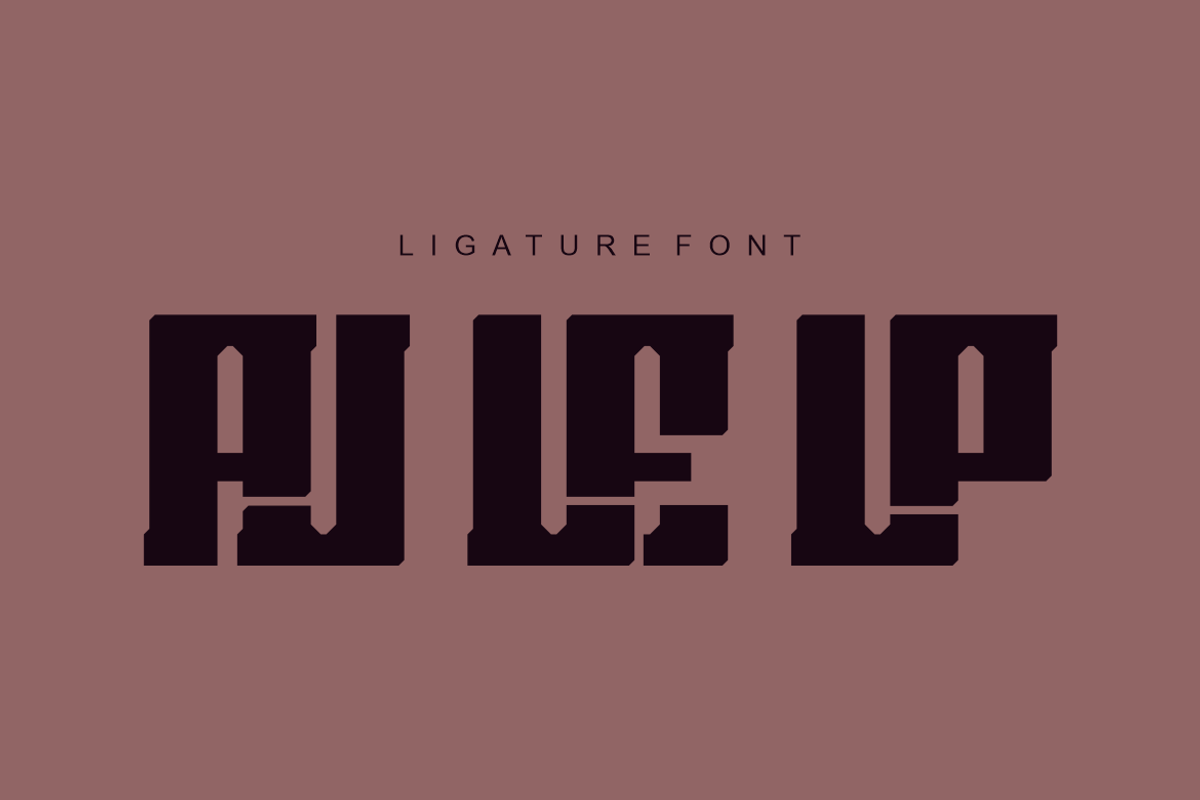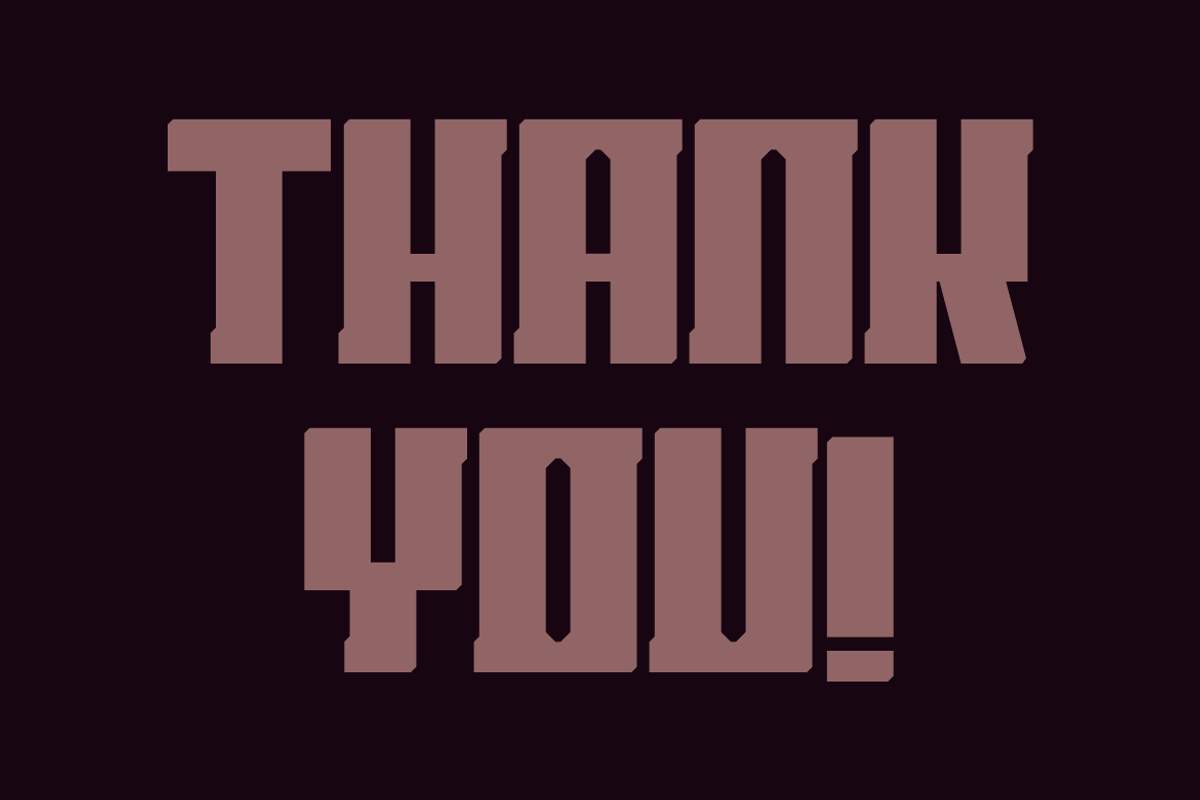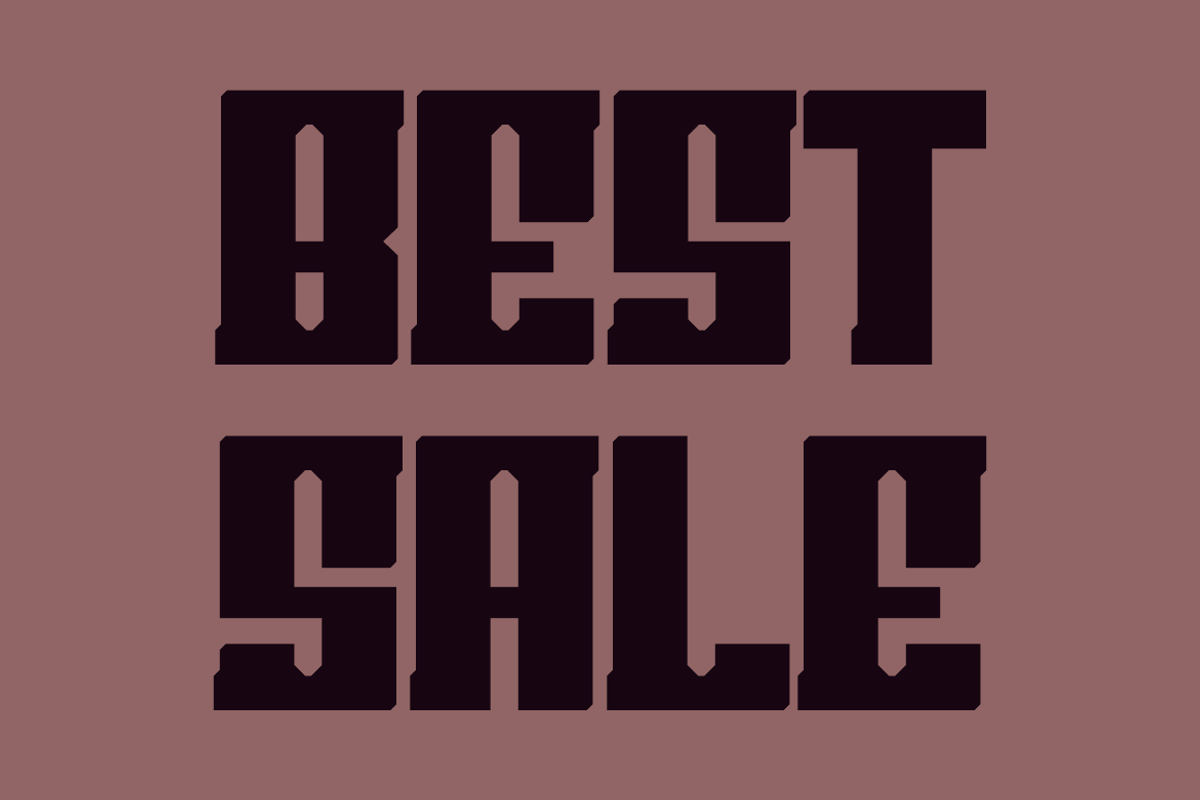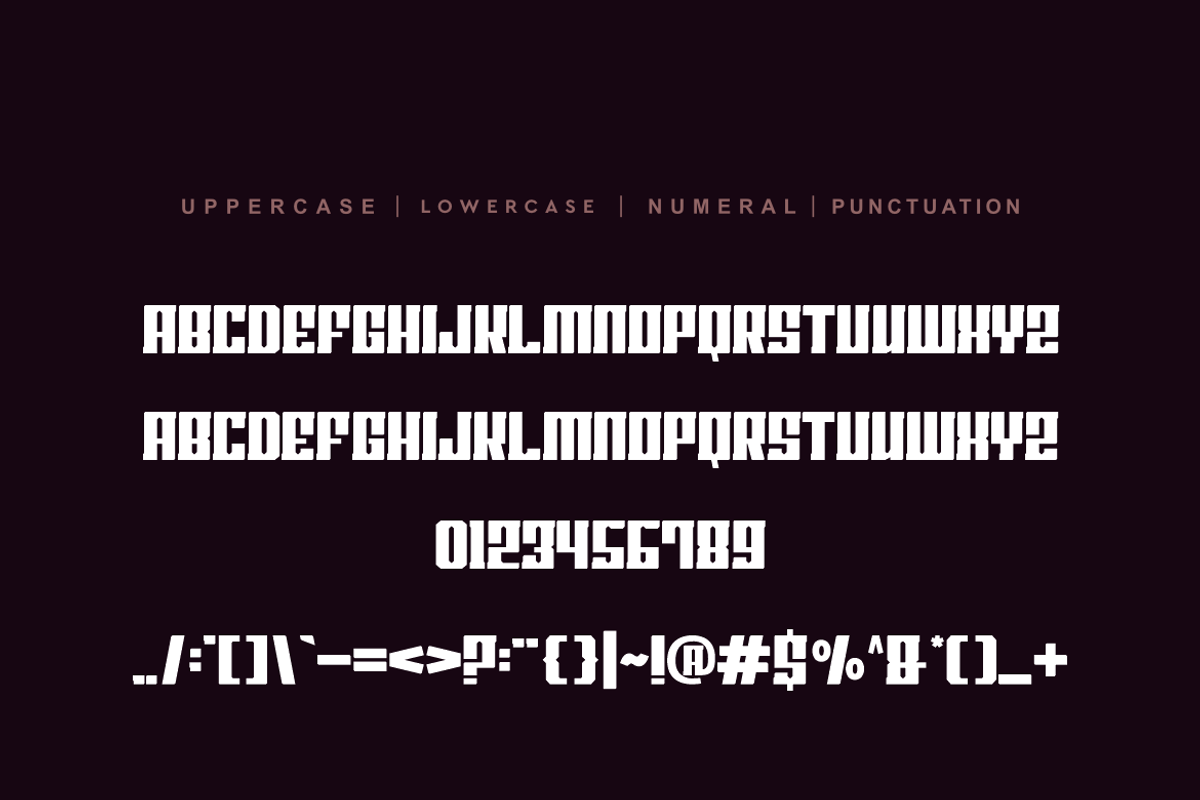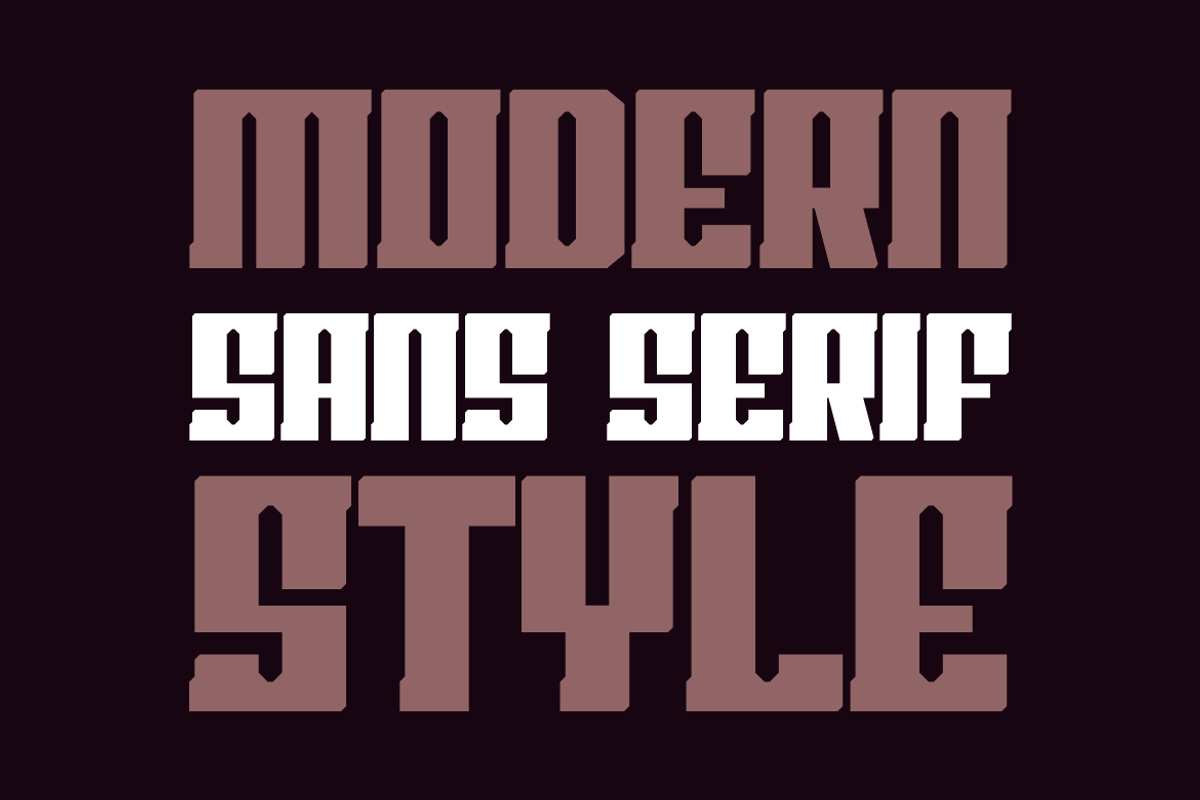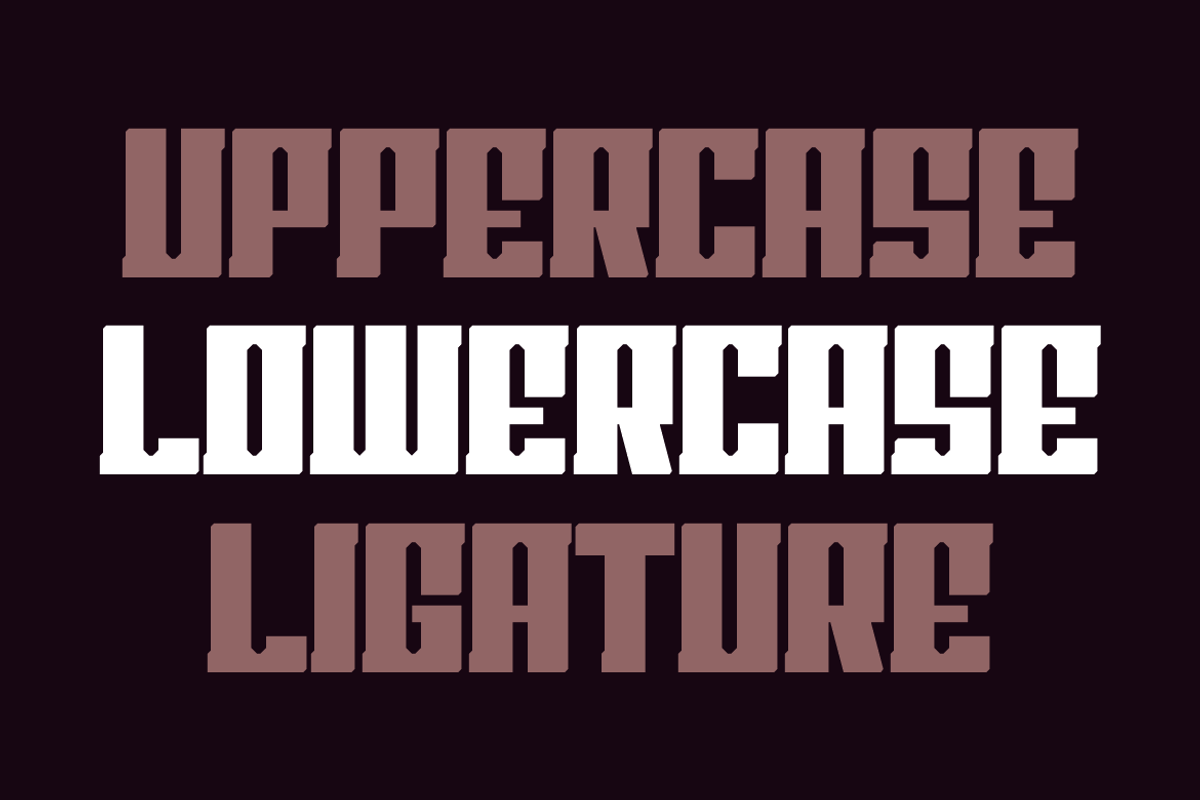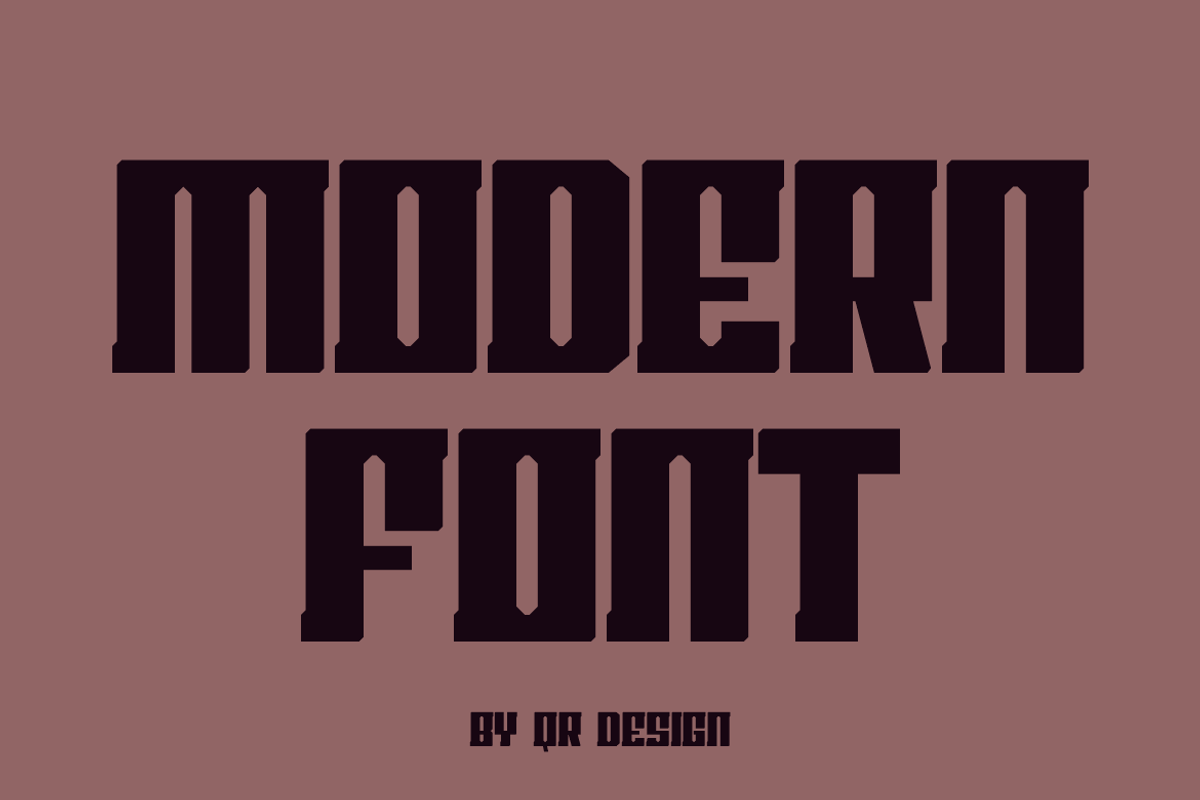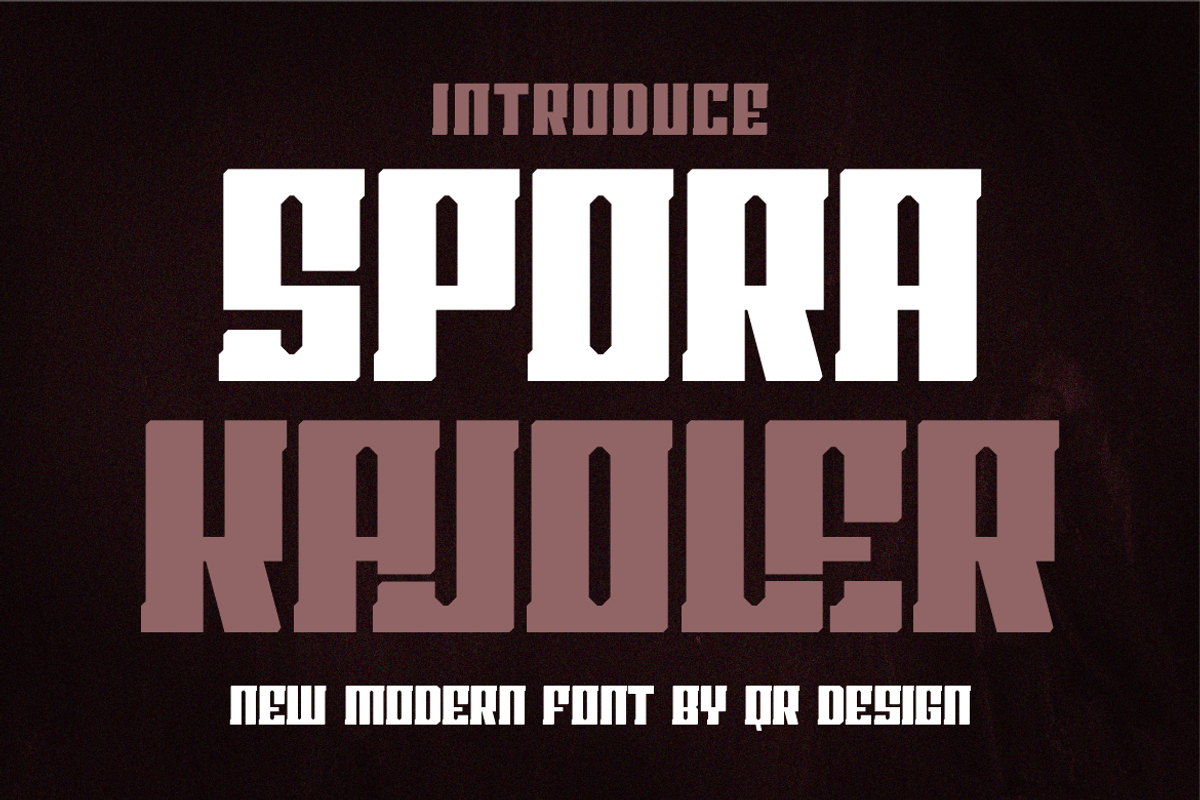
Spora Kajoler
Spora Kajoler Font is a bold and authentic display font. The font is suitable for any branding project like logo, sport, and many more. Outstanding in a wide range of contexts.